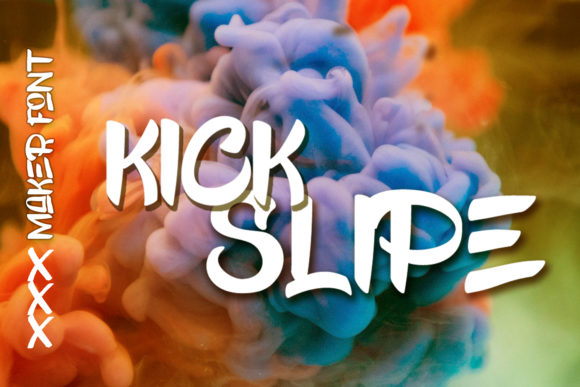
Step into the realm of captivating typography with Kick Slipe Font, an awe-inspiring display typeface that exudes raw power and audacious style. This font is not just a collection of letters; it's an artistic expression that will transform your designs into masterpieces.
Crafted by the visionary minds at Lettercorner Studio, Kick Slipe Font embodies a contemporary twist that sets it apart from the ordinary. Its bold strokes and sharp edges demand attention, making it the perfect choice for headlines, logos, posters, and any project that craves a bold and impactful presence.
Immerse yourself in the urban vibe that Kick Slipe Font effortlessly exudes. Its dynamic character adds a touch of edginess and modernity to your designs, making them stand out from the crowd. Embrace the raw energy of this font and let it unleash your creativity.
With Kick Slipe Font, you'll experience a new level of design freedom. Its versatility knows no bounds, allowing you to experiment with different styles and applications. Create eye-catching social media posts, visually stunning presentations, or captivating website designs that leave a lasting impression.
Don't settle for ordinary fonts that blend into the background. Choose Kick Slipe Font and make a statement with your designs. Its powerful presence commands attention, captivating audiences and leaving them wanting more. Step into the spotlight and let your creativity shine with Kick Slipe Font.